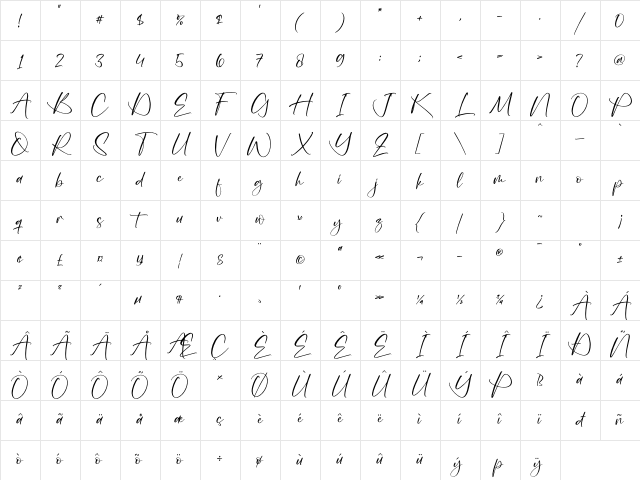
Cestany Regular Free Font
Cestany Regular
Foundry: Integritype Studio
Designer: Nanang Jamaludin
Design Context for Cestany
Cestany is a composed and adaptable typeface that performs quietly and consistently across a wide range of design contexts.